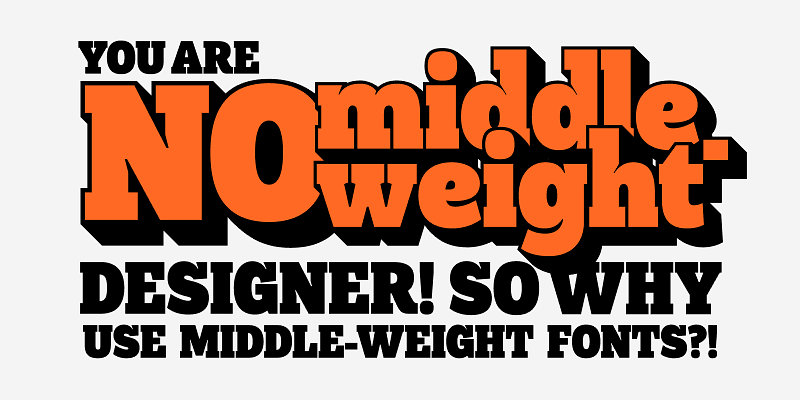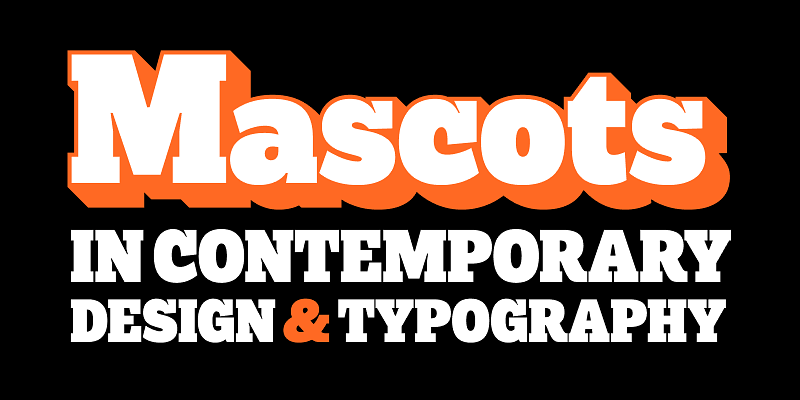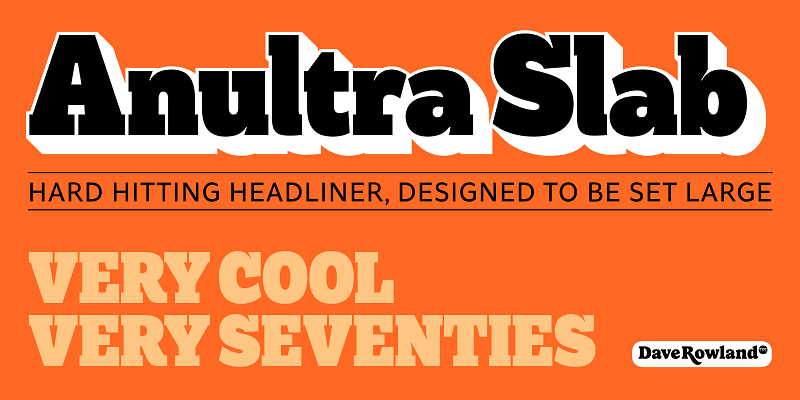
Anultra Slab is, you guessed it… An ultra-bold slab serif! It is a hard-hitting headliner, designed to be set LARGE. Think editorial spreads and event banners. Because it’s a single-weight typeface, no compromises were necessary to get it interpolatable with other weights, so it is as bold and tight as intended. Don’t miss the 3D ‘xtrude’ style that can be layered behind the regular to create two-colour, photo-lettering style text. Very seventies. Very cool. A companion typeface for Alight Slab.